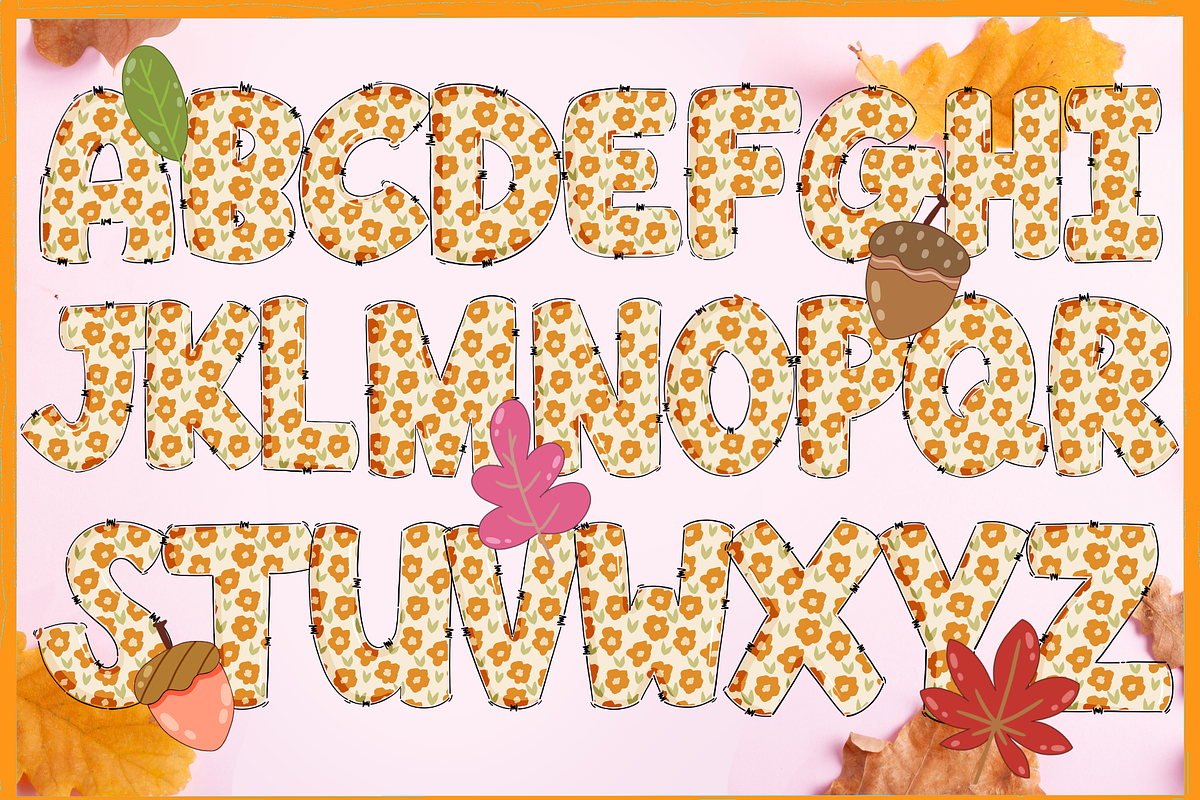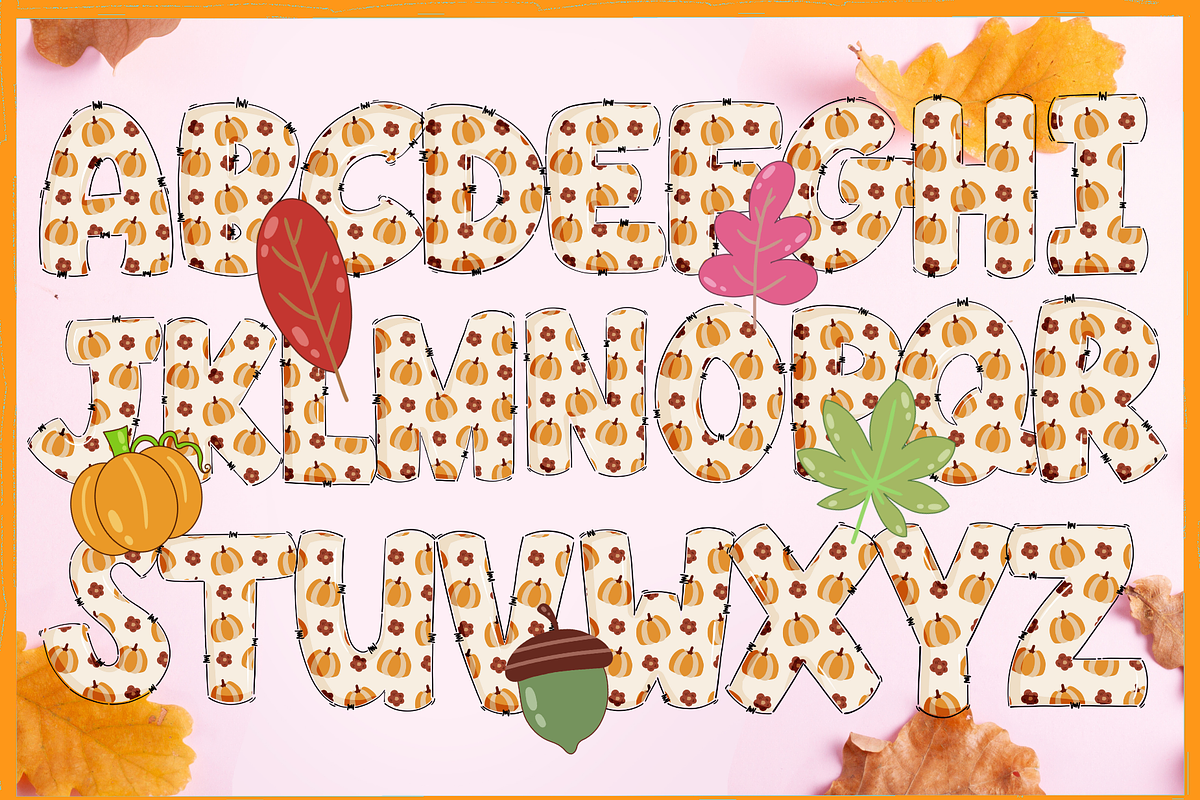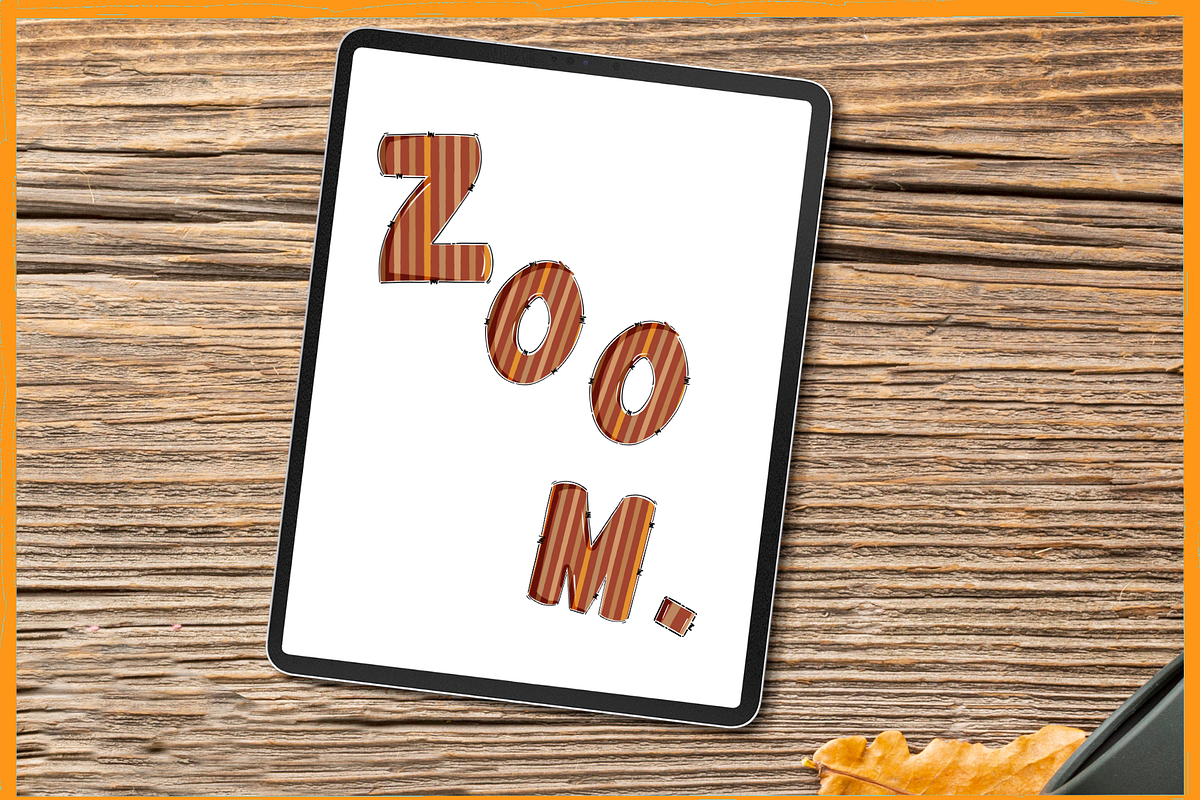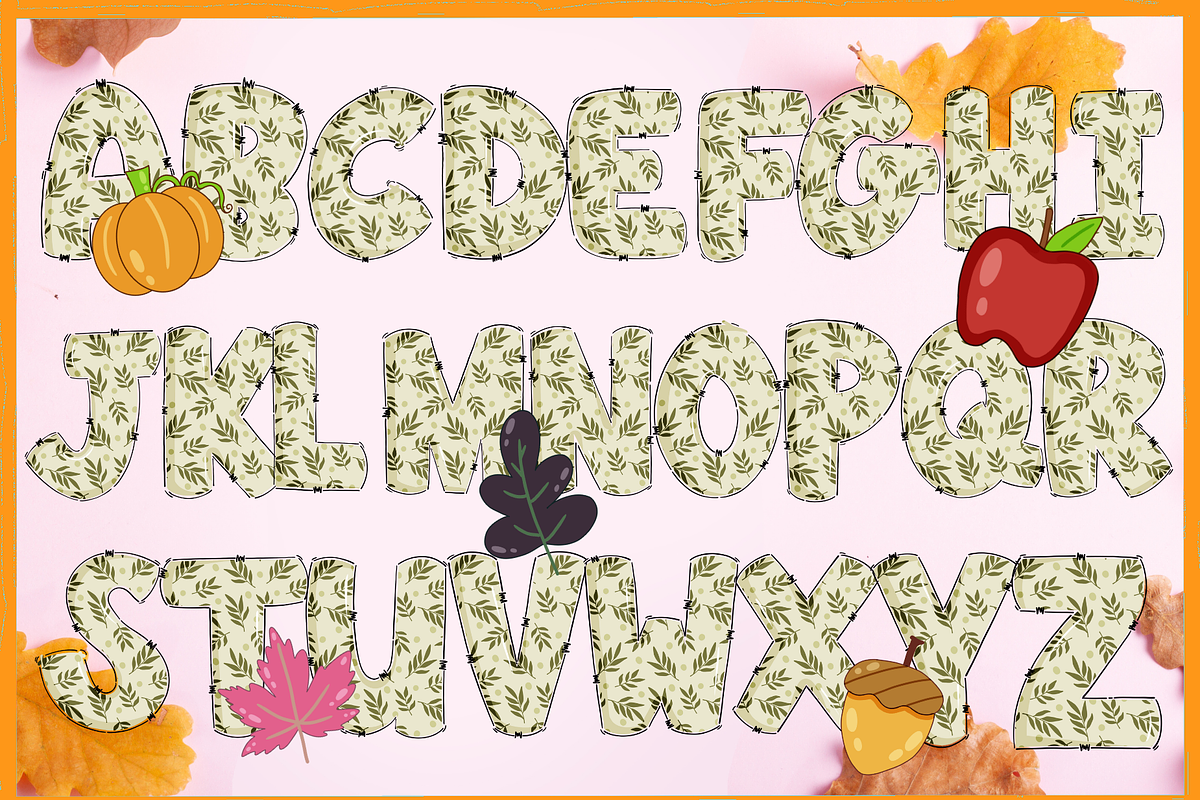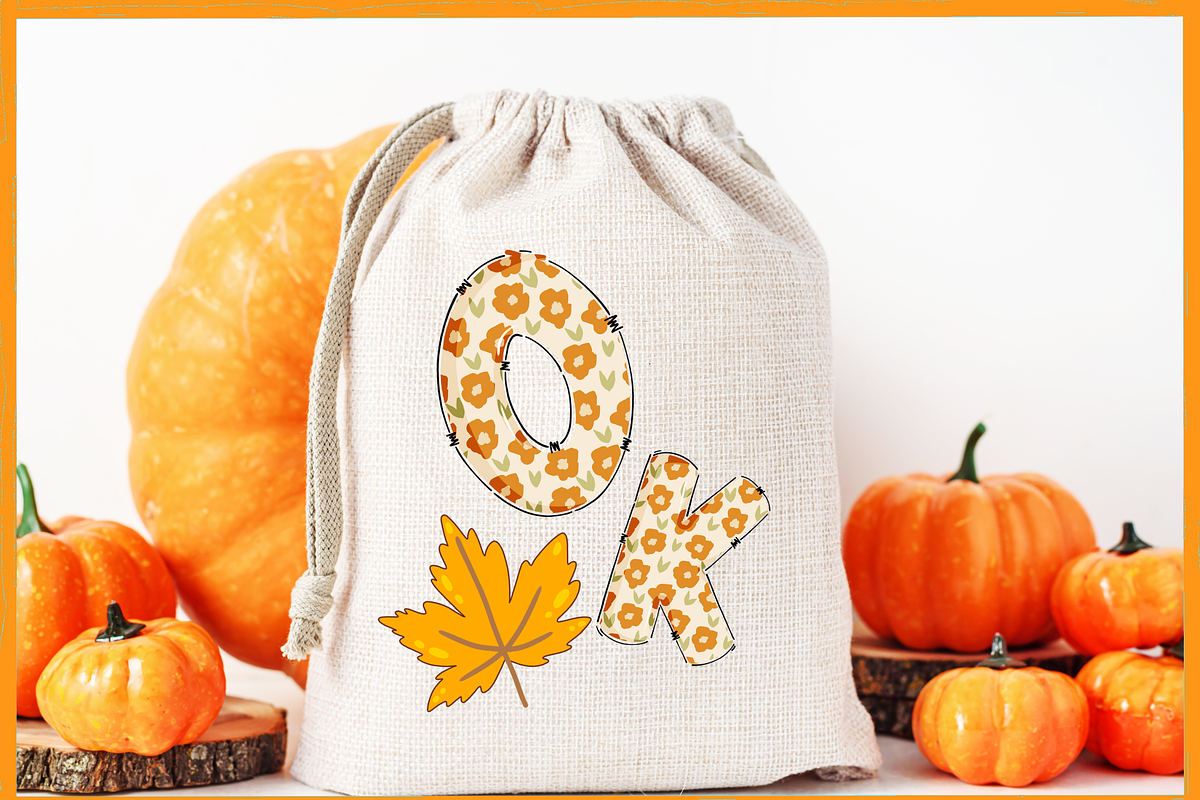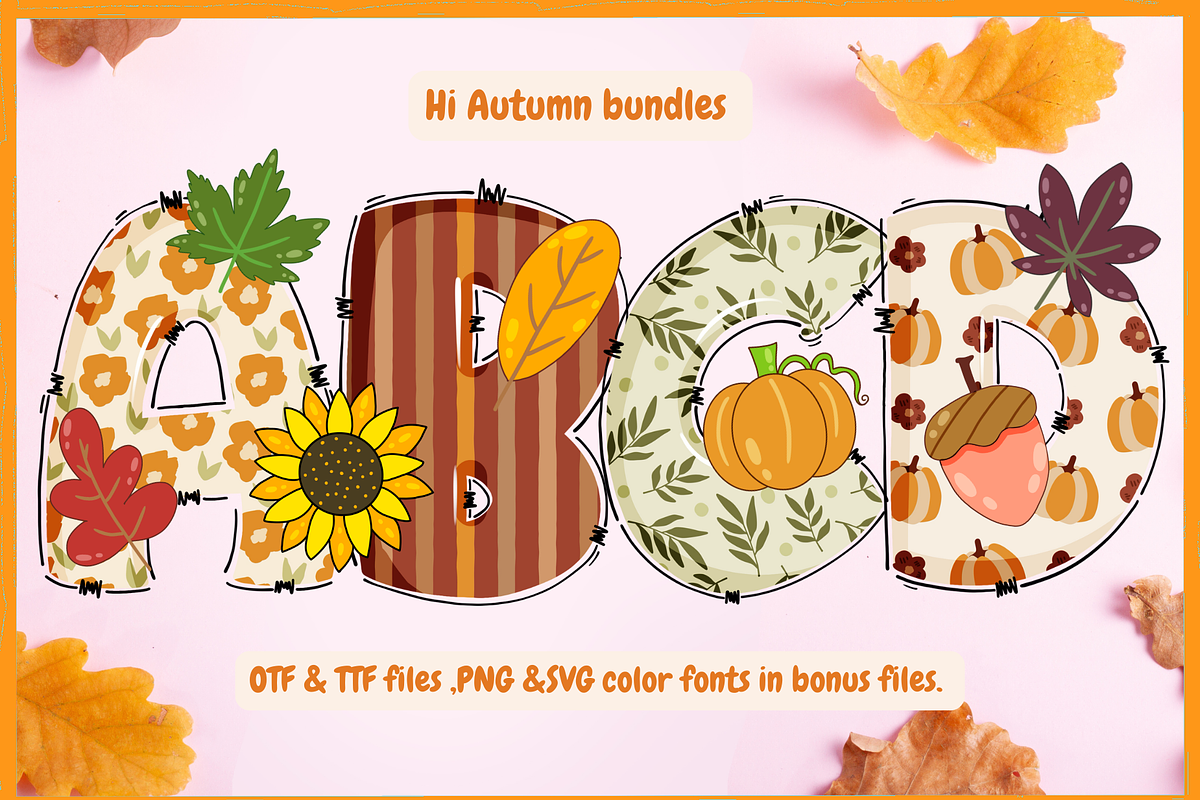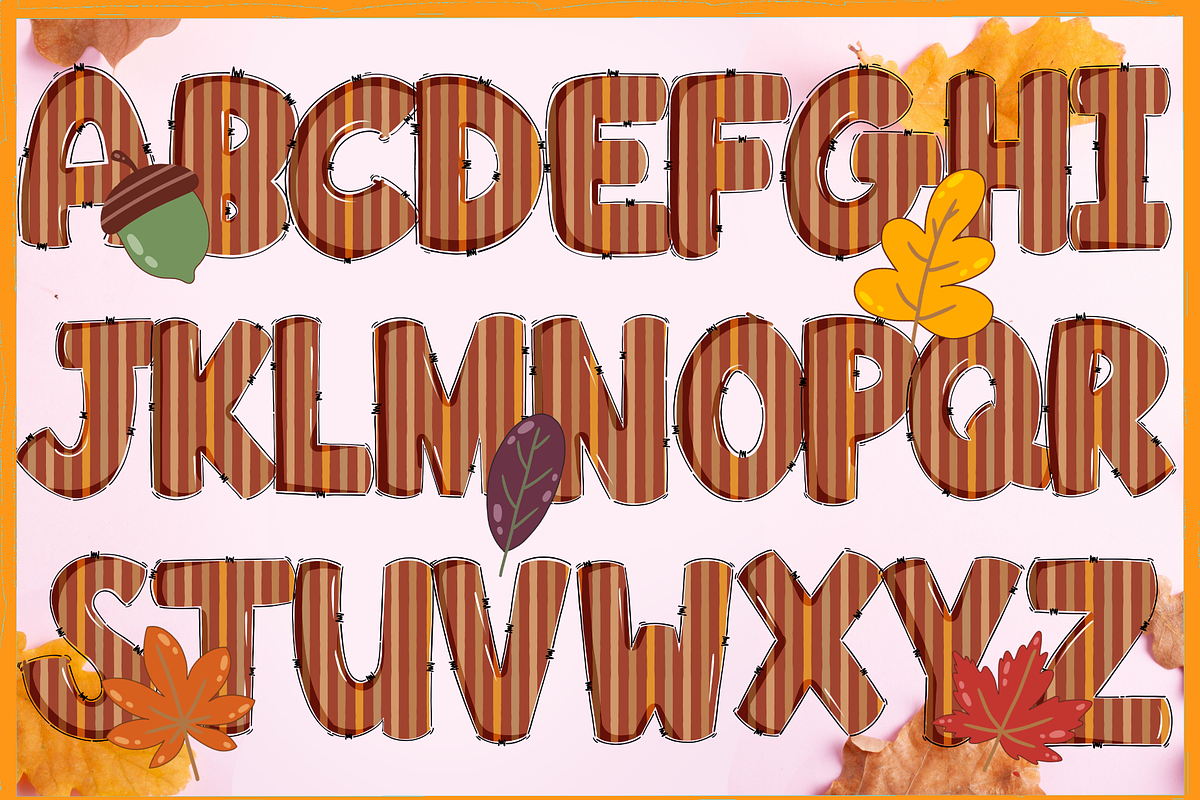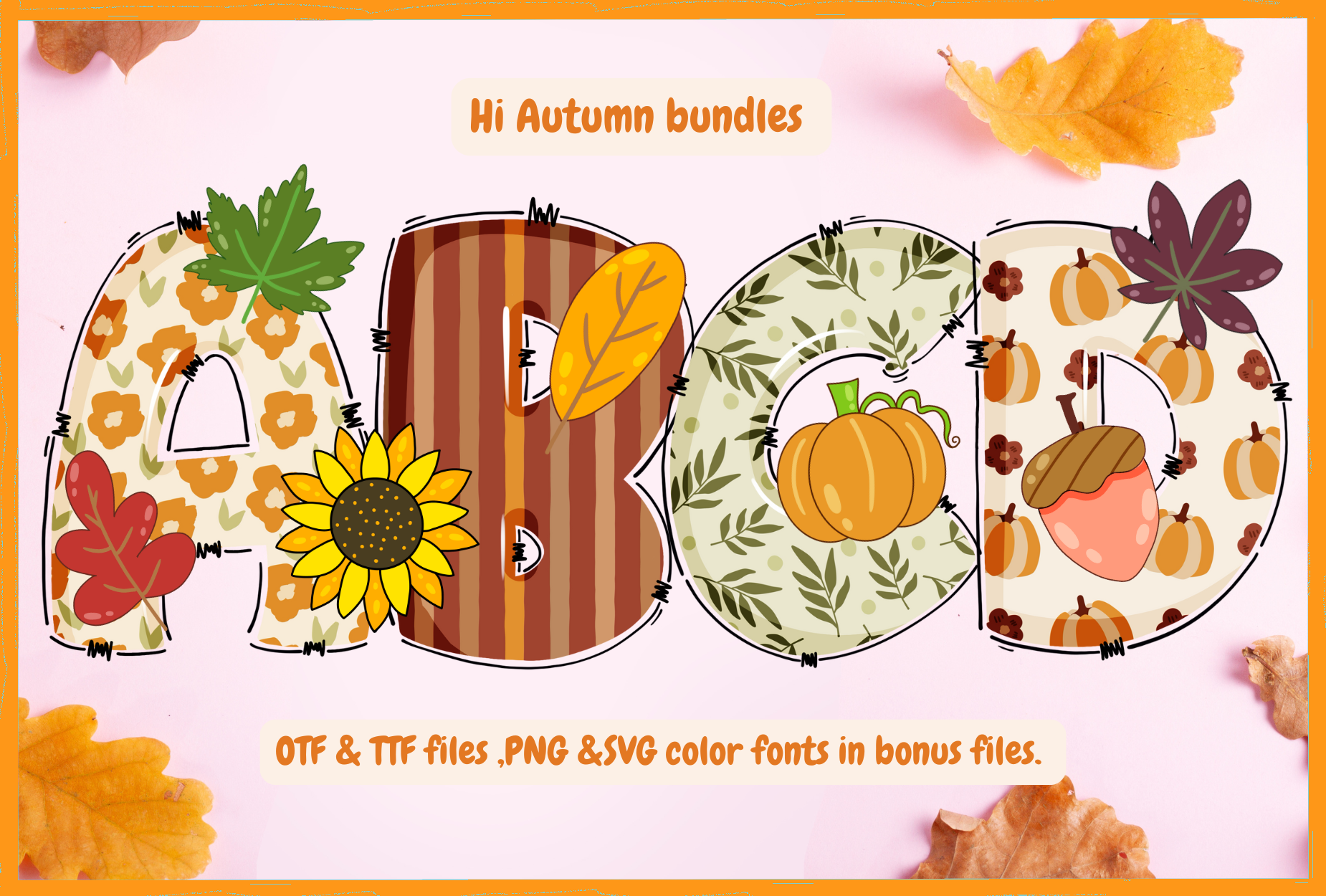
Hi Autumn-PNG fonts
Hi Autumn is a playful and colorful decorative font designed to capture the cozy, joyful spirit of autumn. Each letter is adorned with seasonal motifs such as pumpkins, leaves, acorns, sunflowers, and fall-inspired patterns, making it a perfect choice for festive and creative projects.